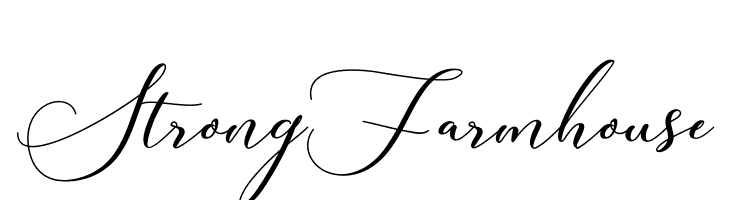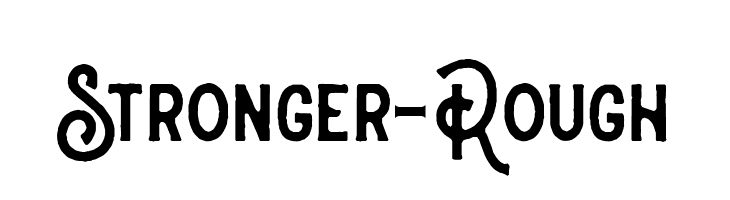
A bold, geometric font with a strong, industrial aesthetic.
A bold, artistic font with exaggerated curves and sharp points, ideal for creative projects.
A bold, industrial font with a rugged, distressed texture.
A bold, italic font with a geometric and distressed design, ideal for impactful visuals.
A bold, geometric font with sharp angles and a futuristic style.
A bold, expressive handwritten font with dynamic strokes and a modern flair.
A bold, three-dimensional font with a strong shadow effect and geometric style.
A bold, smooth script font with flowing curves and strong strokes.